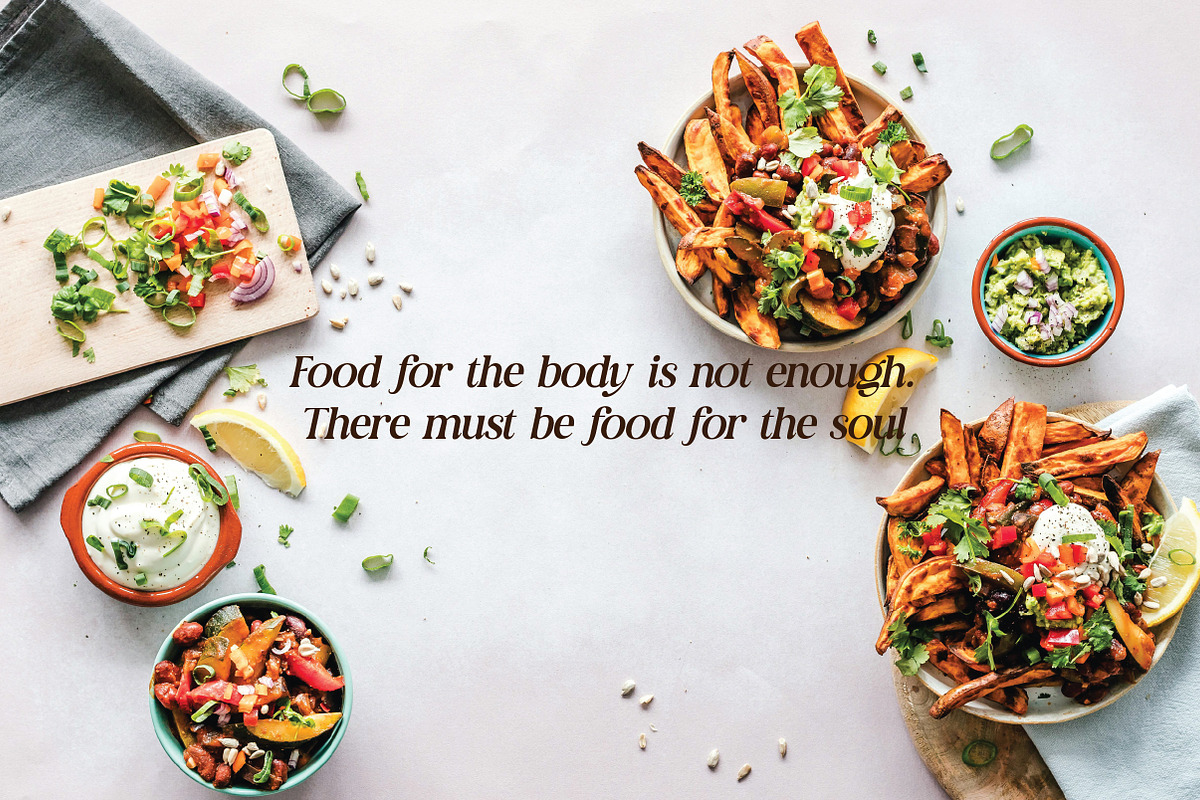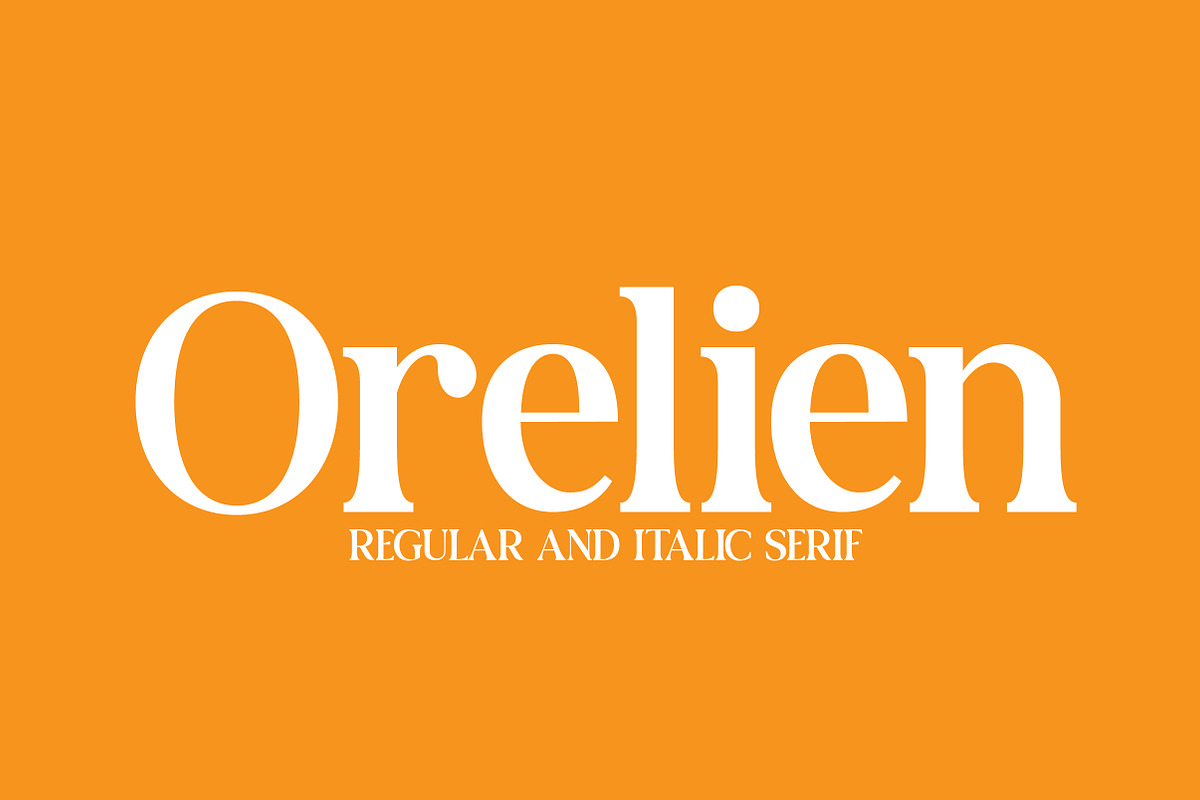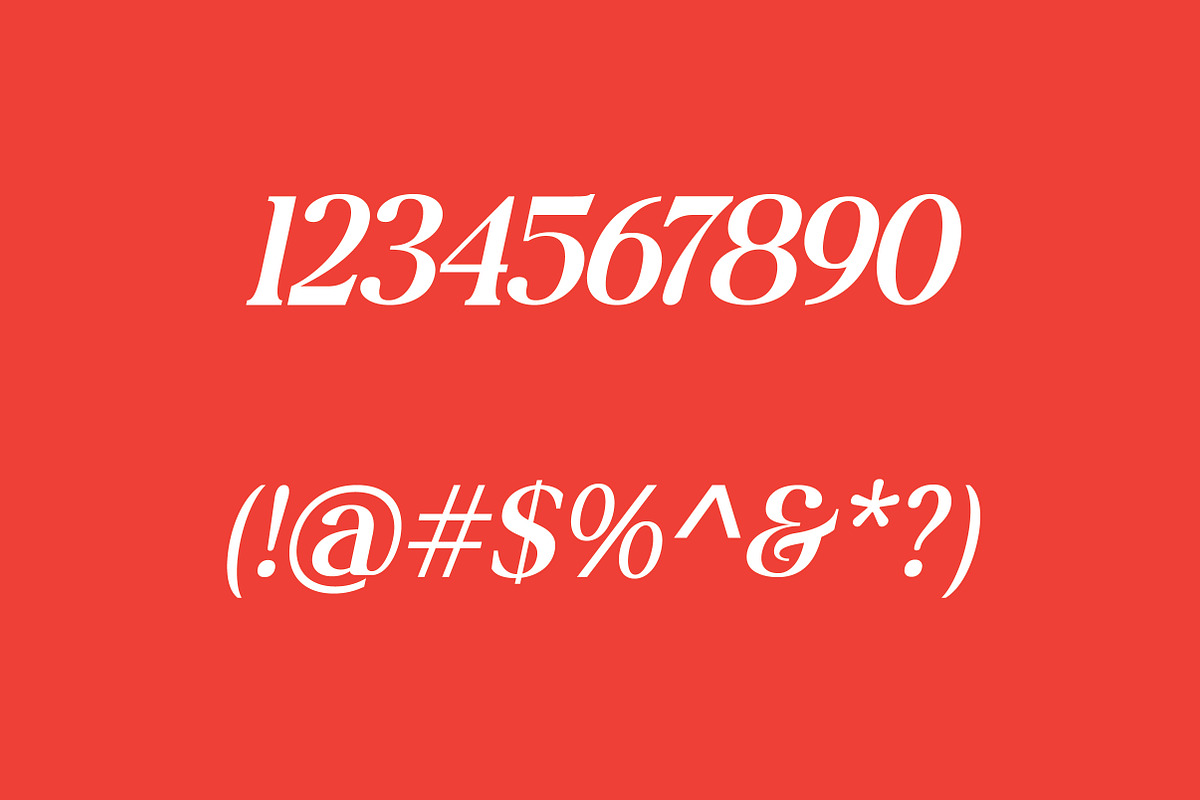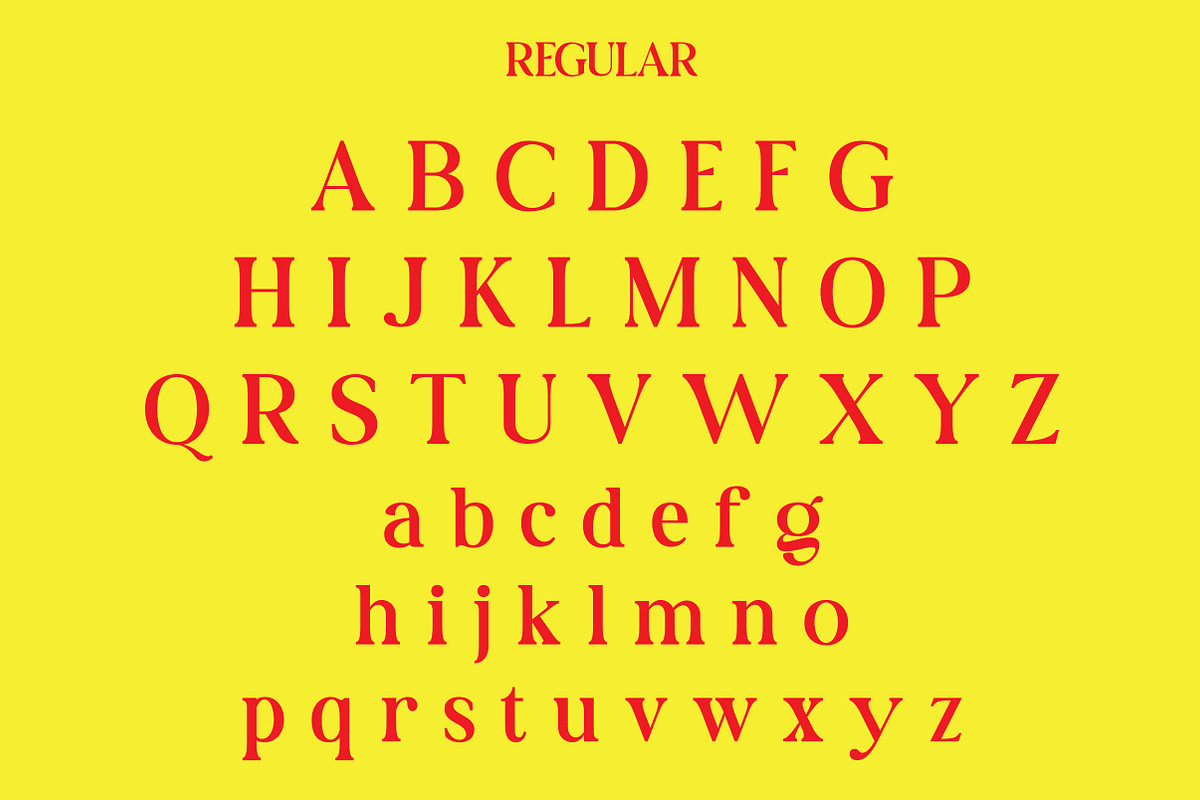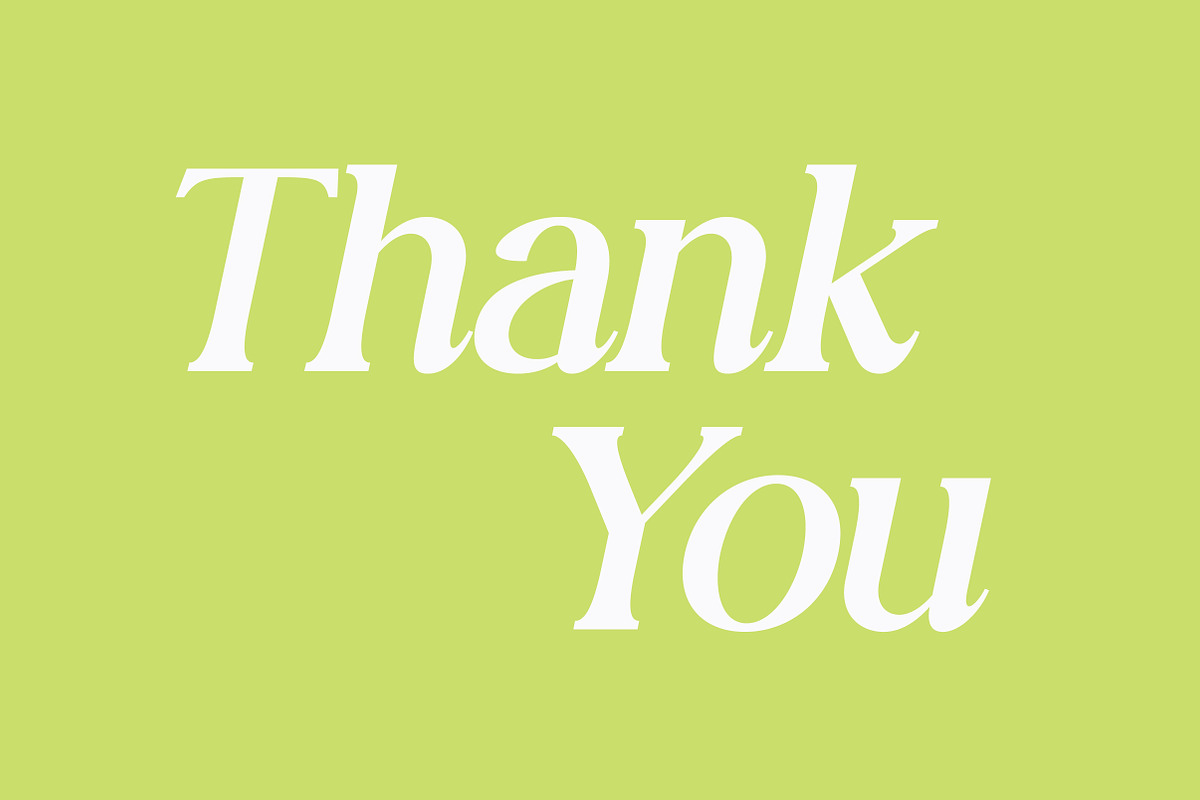
Orelien | Elegant Italic Serif
Orelien is a graceful serif typeface featuring two elegant styles: Regular and Italic, designed to bring sophistication and timeless beauty to your creative work. With its flowing curves, sharp contrast, and refined letterforms, Orelien is perfect for branding, wedding invitations, magazine headlines, logos, and high-end packaging.
The Regular style offers clarity and balance, ideal for clean, professional layouts, while the Italic adds a stylish, romantic flair without sacrificing readability. Together, they give designers the versatility to make a bold yet elegant impression across a variety of design contexts.
Uppercase & lowercase letters
Orelien brings a luxurious, expressive touch to your typography with a classic soul and modern edge.